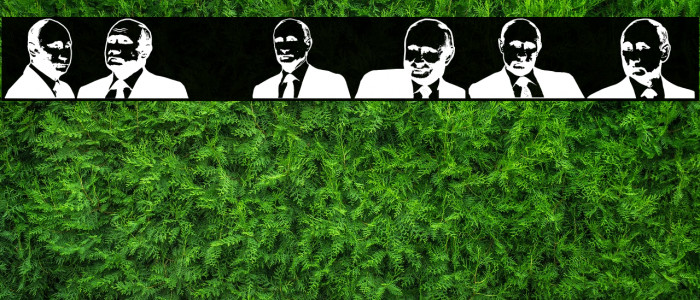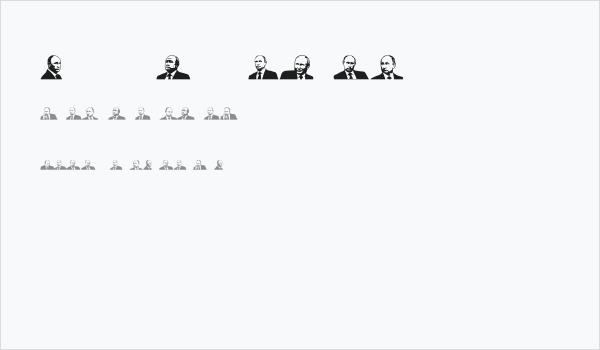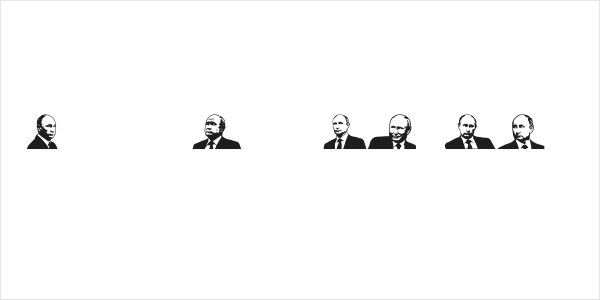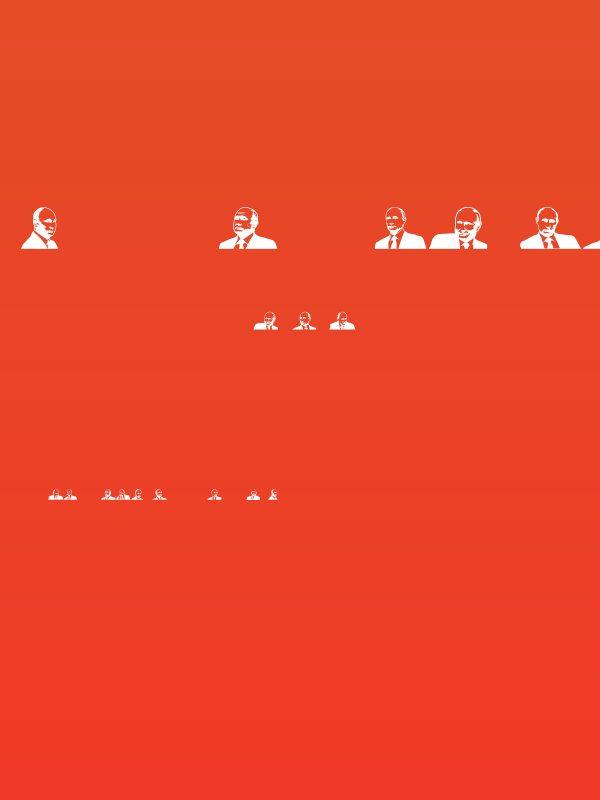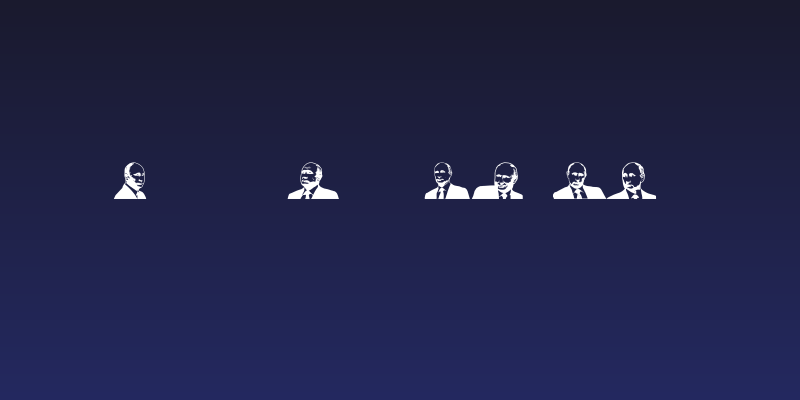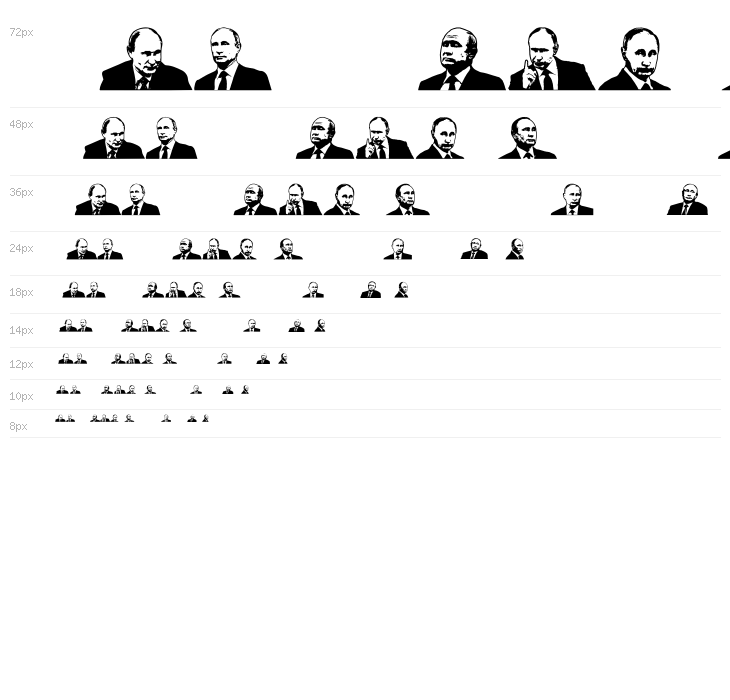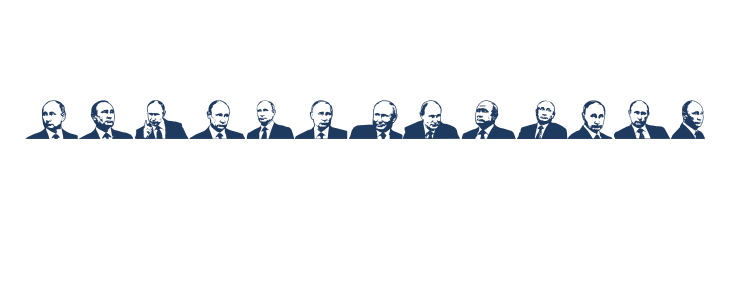
Mr.Putin Regular Font
Mr.Putin Regular Description
This is a decorative font consisting of repeated black-and-white illustrations of a man's head and shoulders in various expressions and poses, arranged in place of standard alphanumeric characters.
A novelty font made up of illustrated portraits instead of traditional letters or numbers from Dingbats fonts.
- Proposed Projects: Humorous designs, posters, meme creation, novelty event materials, or themed graphic projects.
- Overall Style: Decorative, Novelty
- Use Case: Display, Posters, Themed Graphics